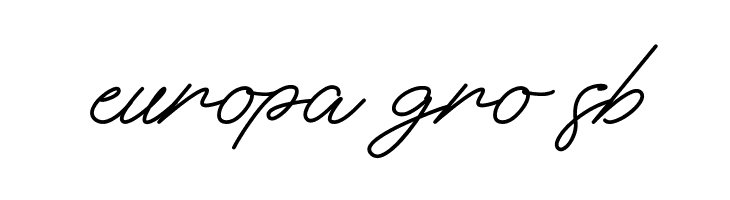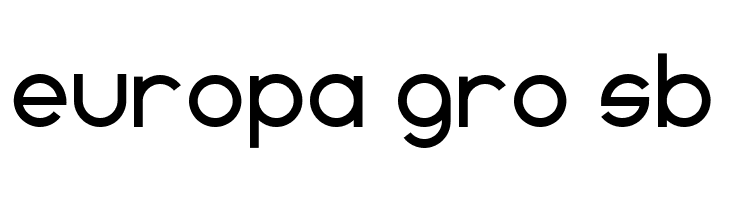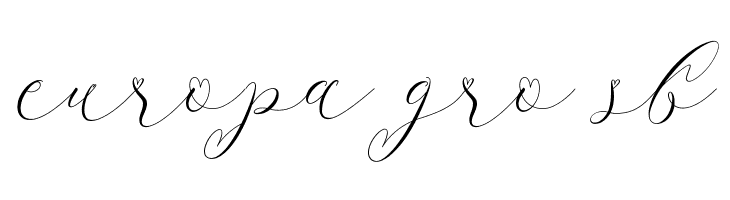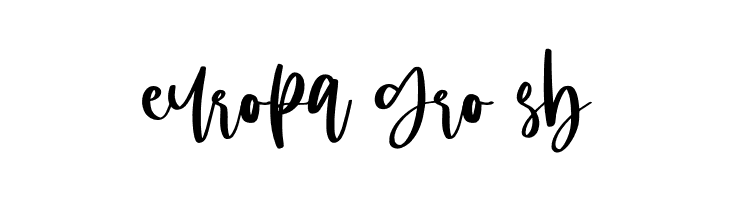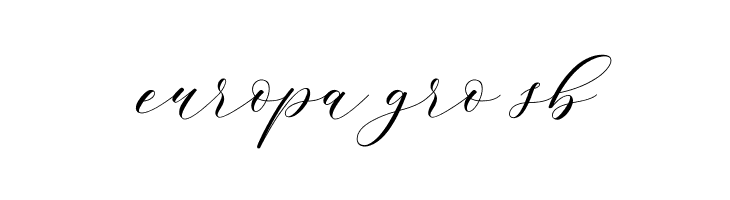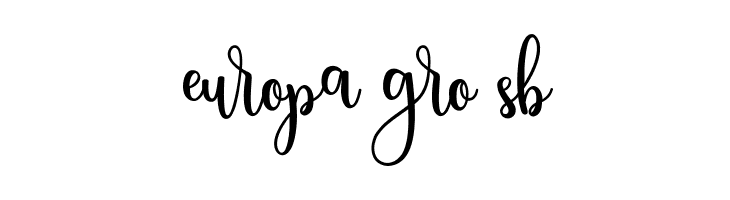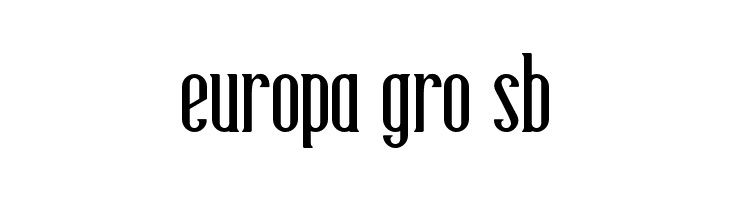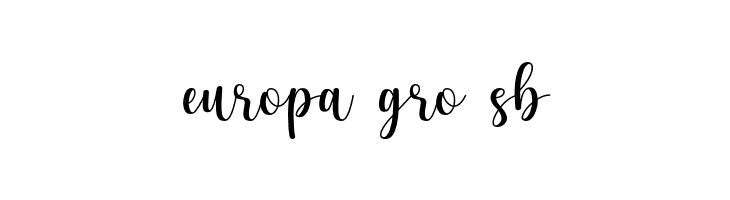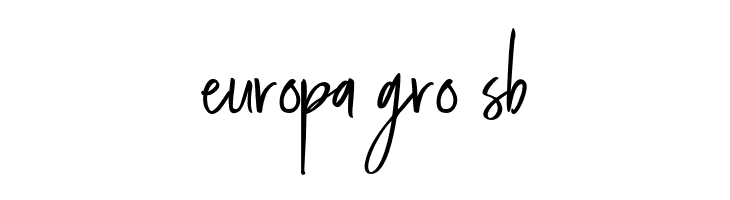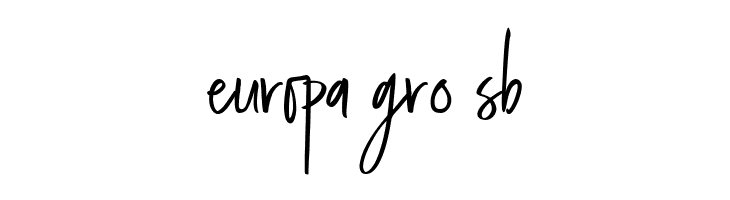
A fluid and elegant script font with smooth, flowing lines.
A modern, geometric sans-serif font with uniform stroke width.
An elegant script font with graceful, flowing lines and intricate flourishes.
A playful, artistic handwritten font with fluid, cursive-like strokes.
A graceful and sophisticated script font with flowing, interconnected letters.
A flowing, cursive font with elegant loops and decorative flourishes.
A modern, elongated font with a bold and sophisticated style.
A graceful and elegant script font with ornate uppercase letters and smooth lowercase characters.
A dynamic handwritten font with fluid, expressive strokes.
A playful and dynamic handwritten font with fluid strokes.